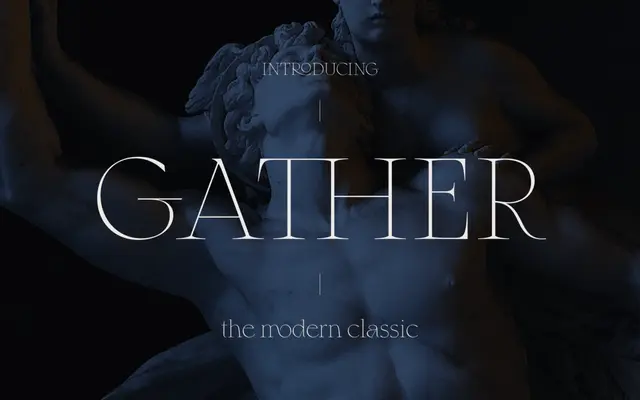
Gather Serif
A contemporary serif with an extensive set of decorative ligatures and stylistic alternates aimed at editorial and branding use.
Gather Serif leans on its ligature set as its main selling point, covering over 30 combinations from CH and CO to ffl and ffi, alongside stylistic alternate glyphs. Latin language support covers Western European, Central European, South Eastern European, South American and Esperanto scripts. Positioned as an elegant display serif for branding and typographic work where ornamental detail is welcome.
Marketed as a modern classic serif with decorative ligatures and stylistic alternates, placing it in the contemporary display-leaning serif category.